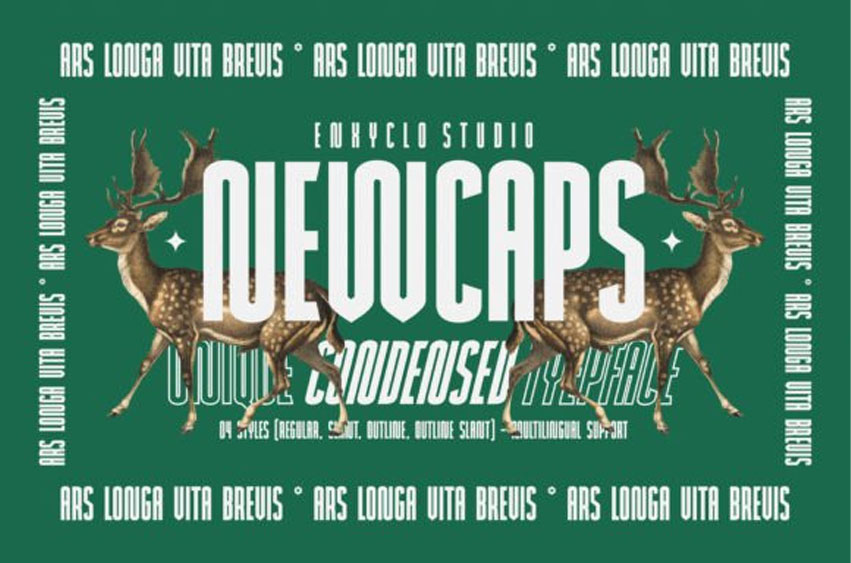
Newcaps Font is a cool and interesting display font.
No matter the topic, this font will be an incredible asset to your font library, as it has the potential to elevate any creation.